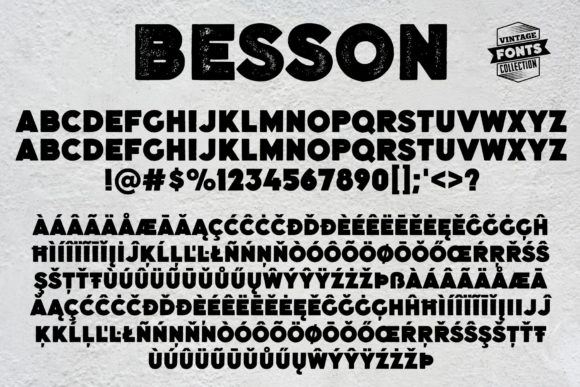
Besson Font: Elevate Your Designs with a Modern Twist
Besson is a bold and powerful display font that will effortlessly put a modern twist to any design idea. This stunning font is perfect for designers and crafters looking to add a touch of sophistication and elegance to their projects. In this article, we’ll dive into the world of Besson Font, exploring its features, benefits, and uses, as well as provide tips on how to make the most of this incredible font.
The Power of Besson Font
Besson Font is a versatile and highly customizable font that can be used for a wide range of design projects, from logos and branding to posters, flyers, and more. Its bold and modern design makes it perfect for making a statement, while its clean lines and elegant curves ensure that it remains highly legible, even at large sizes.
Key Features of Besson Font
- Bold and Powerful Design: Besson Font is designed to make a statement, with bold lines and a confident presence that demands attention.
- Modern Twist: With its clean lines, elegant curves, and contemporary feel, Besson Font is the perfect choice for designers looking to add a touch of modernity to their designs.
- Highly Legible: Despite its bold design, Besson Font remains highly legible, even at large sizes, making it perfect for use in a wide range of design projects.
- Highly Customizable: Besson Font is highly customizable, allowing designers to experiment with different colors, textures, and effects to create a unique look that suits their brand or design style.
Benefits of Using Besson Font
So why choose Besson Font for your design projects? Here are just a few benefits of using this incredible font:
- Instant Impact: Besson Font is designed to make a statement, and its bold and powerful design ensures that it will grab attention and make an instant impact.
- Versatility: Besson Font can be used for a wide range of design projects, from logos and branding to posters, flyers, and more.
- Elegance and Sophistication: With its clean lines and elegant curves, Besson Font adds a touch of elegance and sophistication to any design project.
- Easy to Use: Besson Font is highly customizable and easy to use, making it perfect for designers of all skill levels.
Using Besson Font in Your Designs
So how can you use Besson Font in your designs? Here are a few ideas to get you started:
- Logos and Branding: Use Besson Font to create a bold and memorable logo that will help your brand stand out.
- Posters and Flyers: Besson Font is perfect for use in posters and flyers, where its bold design and high legibility make it easy to read and understand.
- Social Media Graphics: Use Besson Font to create eye-catching social media graphics that will help your brand stand out in a crowded online space.
- Packaging Design: Besson Font can be used to create eye-catching packaging designs that will help your product stand out on store shelves.
Tips for Getting the Most out of Besson Font
Here are a few tips for getting the most out of Besson Font:
- Experiment with Colors and Textures: Besson Font is highly customizable, so don’t be afraid to experiment with different colors and textures to create a unique look.
- Use it Sparingly: While Besson Font is bold and powerful, it can also be overwhelming if used too much. Use it sparingly to create a focal point in your design.
- Pair it with Other Fonts: Besson Font can be paired with other fonts to create a unique and interesting design. Try pairing it with a clean and simple sans-serif font for a bold and modern look.
| Font Name | Besson Font |
| Author | grin3 |
Besson Font is a bold and powerful display font that will effortlessly put a modern twist to any design idea. With its clean lines, elegant curves, and highly customizable design, it’s the perfect choice for designers and crafters looking to add a touch of sophistication and elegance to their projects. Whether you’re creating logos and branding, posters and flyers, or social media graphics, Besson Font is the perfect choice. So why wait? Download Besson Font today and start creating stunning designs that will leave a lasting impression.